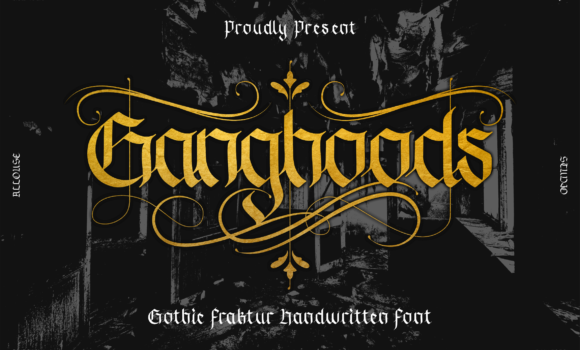
ganghoods
Ganghoods Font – Free Download Introduction to Ganghoods Font Ganghoods is a cool, assertive and distinct blackletter font. 📸 Preview Gallery 6 images 📌 Product Name Ganghoods Font 👤 Author allouse.studio 📂 Category Explore ⬇️ Download Ganghoods Font FREE Free